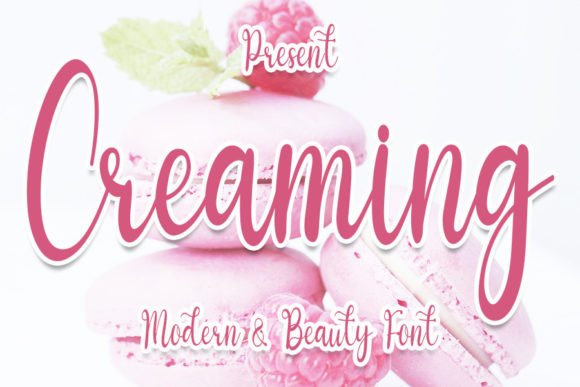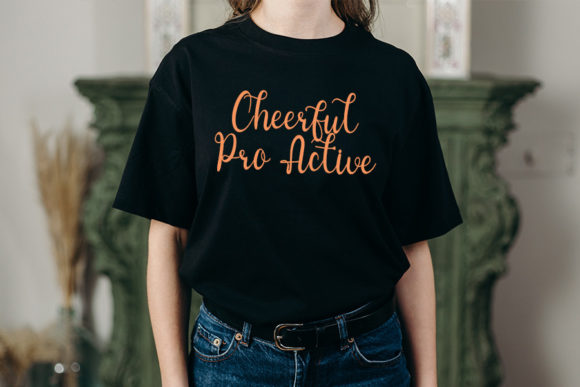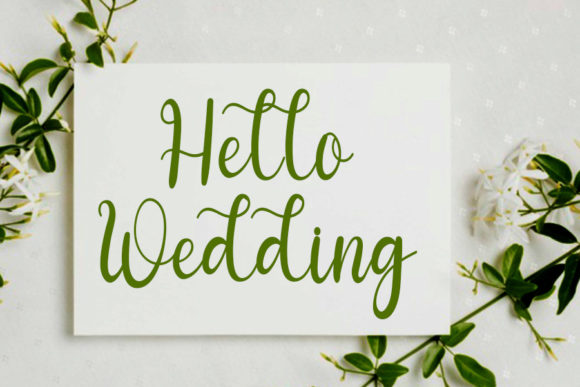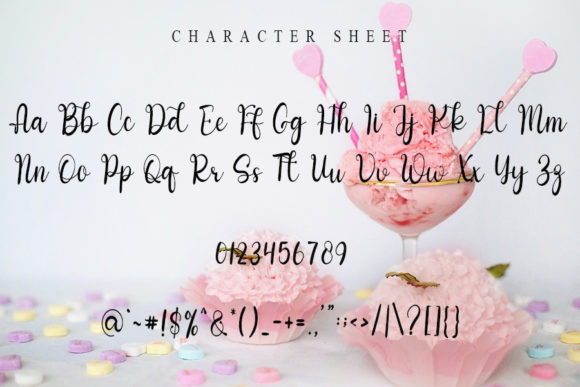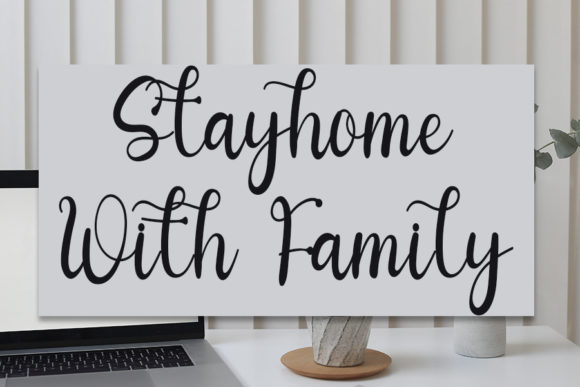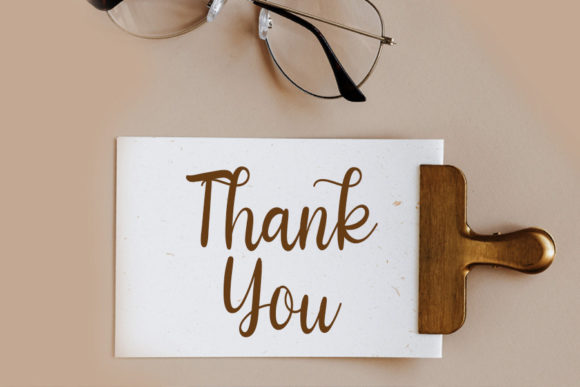
Discover the Timeless Beauty of Creaming Font
Have you ever found yourself lost in the world of design, searching for the perfect font to bring your ideas to life? You know that moment when you stumble upon a font that makes everything click into place? For designers, this is often the holy grail of creative experiences.
Enter the Creaming Font, a delicate and elegant script font that has captured the hearts of designers worldwide. This beautiful font is designed to be versatile and adaptable, making it the perfect addition to any project. Whether you’re working on a wedding invitation, a blog post, or a branding campaign, the Creaming Font is sure to add a touch of sophistication and style.
What sets the Creaming Font apart is its unique balance of elegance and playfulness, making it a valuable asset for designers looking to create stunning and memorable designs. Its well-crafted letters are a masterclass in typography, and its versatility ensures that it will always be a go-to choice for creatives.
Creaming Font Key Features
- Unique Characteristics: This font features a unique blend of modern and elegant styles, with subtle rounded edges and soft curves that give it a distinctive look.
- Legibility: Creaming Font is designed to be highly legible, with clear letterforms and a consistent x-height that makes it easy to read in a variety of contexts.
Creaming Font Review
I’ve had the chance to work with the Creaming Font, and I’m sharing my honest thoughts on its performance.
- Unique Character Set: Creaming Font offers a distinctive and quirky character set that can add a touch of personality to your designs.
- Legibility: Despite its unconventional look, the font remains legible, making it suitable for body text and headings.
- Expressive: This font is perfect for creative projects where you want to convey a sense of playfulness and whimsy.
- Readability at Small Sizes: While Creaming Font is legible, it can become blurry and difficult to read at very small font sizes.
- Limited Versatility: The font’s unique character set may not be suitable for all types of projects, such as formal documents or serious articles.
- Lack of Consistency: The font’s irregularities can be jarring in certain contexts, so it’s essential to use it thoughtfully.
The Creaming Font is a fun and expressive typeface that can add a unique touch to your designs. While it has its limitations, it’s perfect for creative projects where you want to convey a sense of playfulness and whimsy. Just be mindful of its readability at small sizes and use it thoughtfully to avoid jarring irregularities.
The Creaming Font is ideal for:
- Home decor and furniture design
Tips for Getting the Most Out of the Creaming Font
To get the most out of the Creaming Font, consider the following tips:
- Pair it with bold, bright colors to create a playful look.
- Use it for headings and titles to create a clean and modern look.
Alternatives to Creaming Font for Designers
Creaming Font is a popular font, but it may not be suitable for every design project. Here are some alternatives that designers can consider:
Playfair Display is an elegant, high-end font that is perfect for luxury branding and high-end designs. It features intricate details and ornate flourishes that make it stand out. When to use: Use Playfair Display for high-end fashion, luxury goods, or premium services. Comparison: While Creaming Font has a vintage feel, Playfair Display is more luxurious and sophisticated.